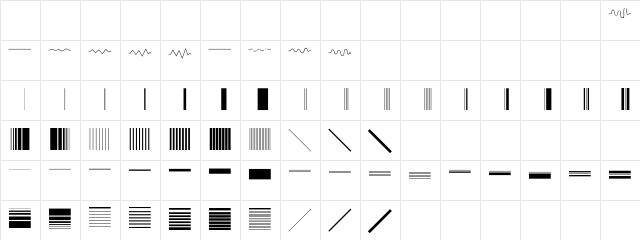
BunchOLines Regular Free Font
BunchOLines Regular
Design Context for BunchOLines
BunchOLines is a composed and adaptable typeface that performs quietly and consistently across a wide range of design contexts.
Pro Tip: Use BunchOLines in both headline and body roles to test its range before committing to a single application.